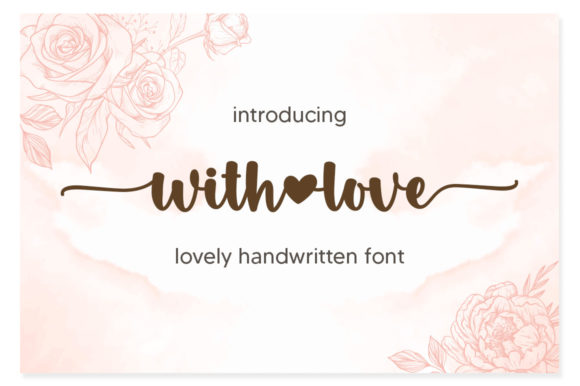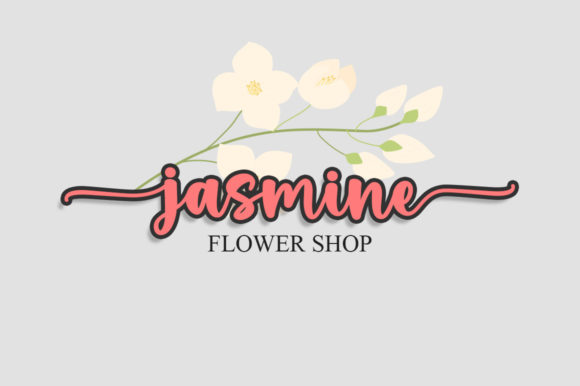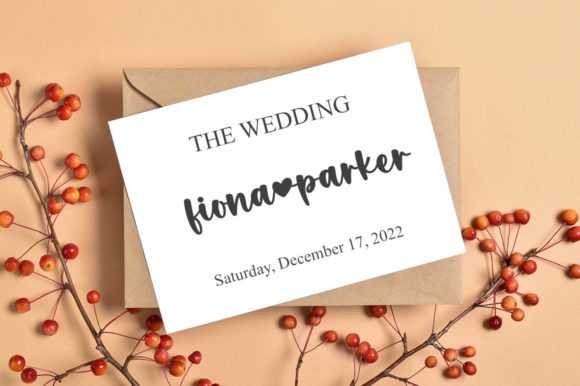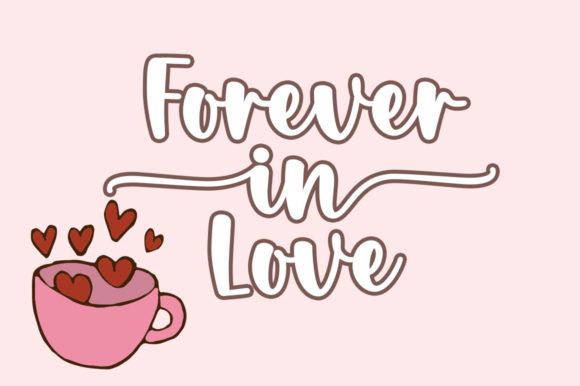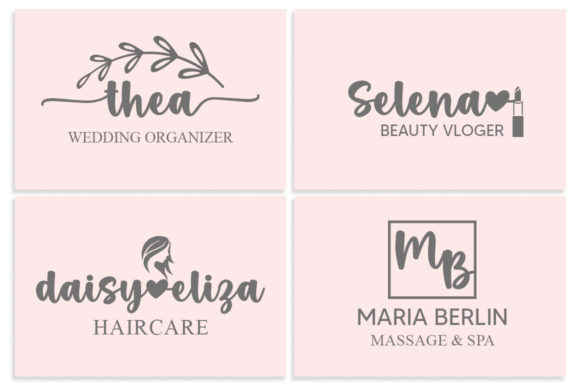
About With Love Font
With Love is a lovely and flowing handwritten font. It has beautiful and well-balanced characters, and as a result, it matches a wide pool of designs.